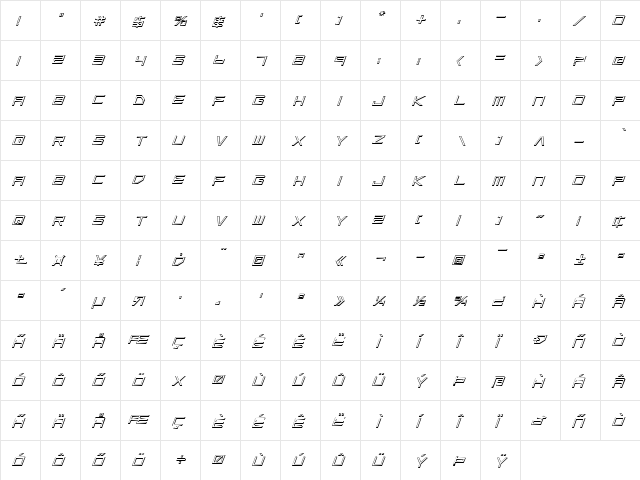
Low Gun Screen Outline Italic Outline Italic
Design Context for Low Gun Screen Outline Italic Typeface
Low Gun Screen Outline Italic brings ornamental detail and strong personality to headlines and identities, where visual impact matters more than quiet functionality. The dynamic lean of this cut emphasises speed and emphasis in any layout.
Font Pairing: Pair with a clean neutral sans-serif for body copy to let Low Gun Screen Outline Italic's character lead without overwhelming the composition.
Pro Tip: Treat Low Gun Screen Outline Italic as the centrepiece of your typographic hierarchy. One strong heading set in a decorative face can carry an entire layout.